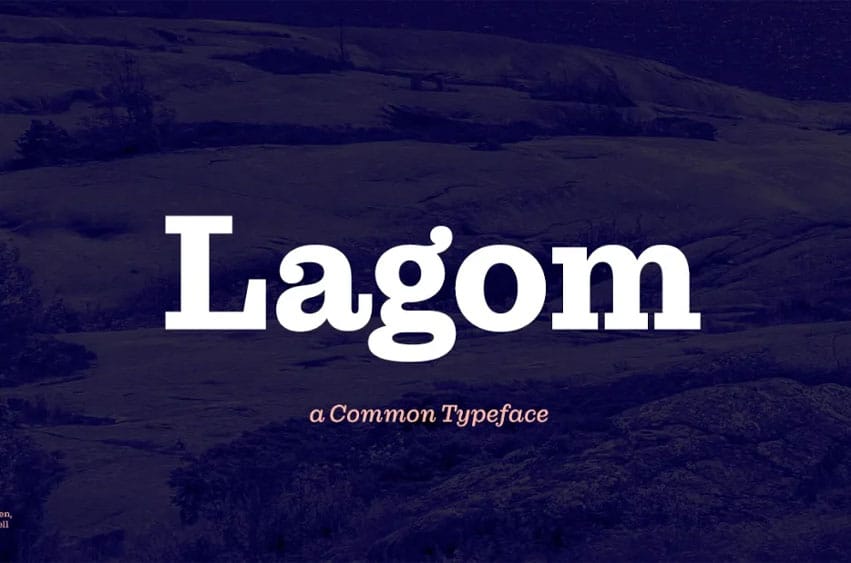
Lagom Font Can’t decide which font to choose from among all the typefaces available for use in the present day? For instance, you may have clients who are skeptical make them believe you by showing them appreciation through Lagom an elegant family.
Since using Lagom in your next project will make you be able to move between elegant and plain. In general, FMCG (fast moving consumer goods), restaurant identity and menus, or the methods of finding Lagom fonts are perfect however, you can attempt to use them in mobile applications as well to make them more personal and friendly.